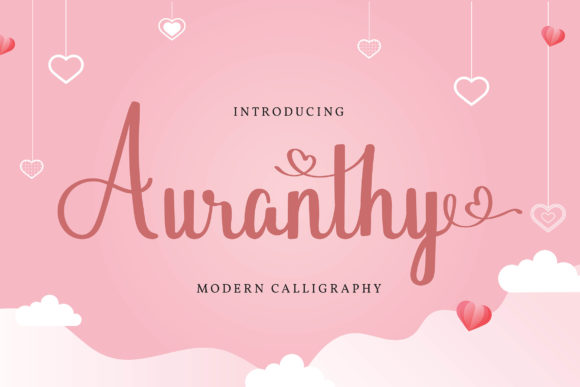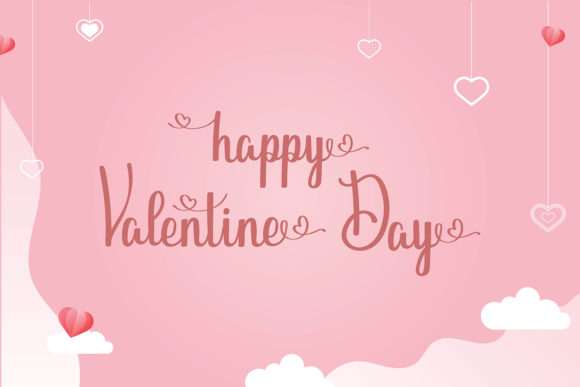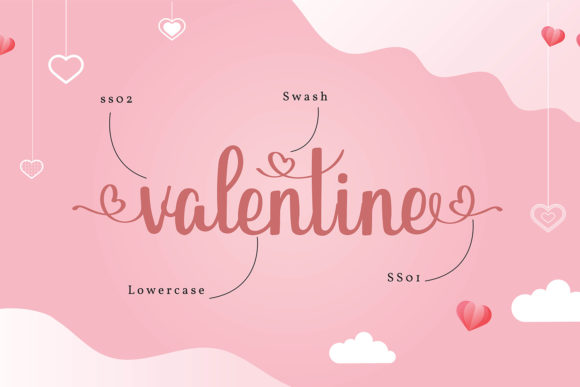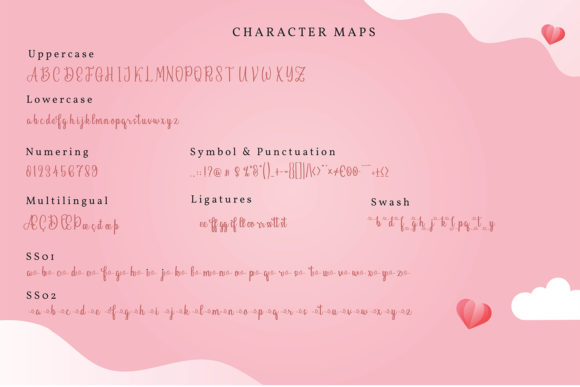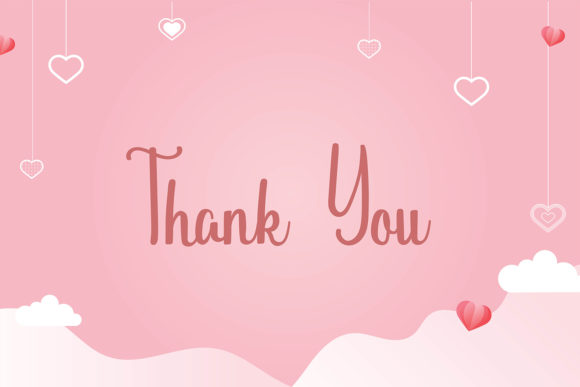
Auranthy Font
About Auranthy Font
Auranthy is a sweet and romantic handwritten font. It can be used for various purposes such as logos, wedding invitations, headings, t-shirts, letterhead, signage, labels, news, posters, badges and so much more. Auranthy is PUA encoded which means you can access all of the glyphs and swashes with ease!